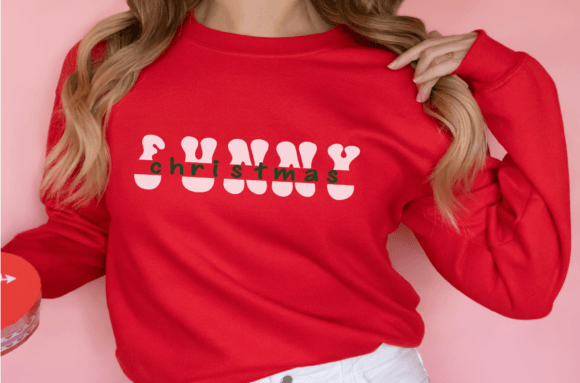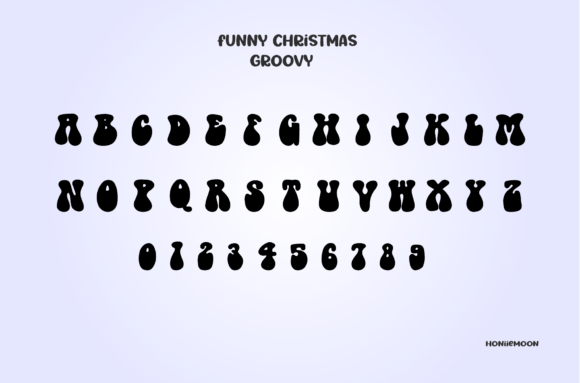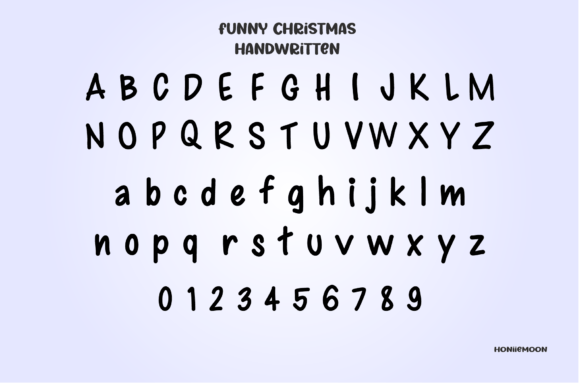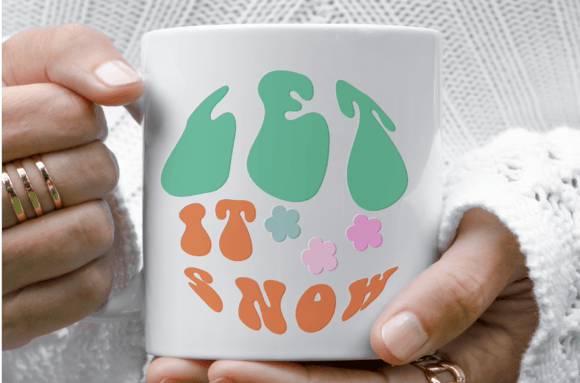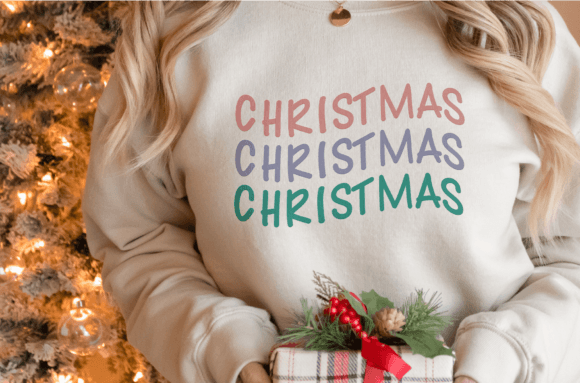
Deck the Halls with Laughter: Introducing the Funny Christmas Duo Font
Are you tired of using the same old boring fonts for your holiday designs? Look no further! Get ready to add some serious festivity and fun to your creations with the Funny Christmas Duo Font. This delightful font duo is the perfect addition to any designer’s toolkit, and we’re excited to dive into its features and benefits.
A Font Duo Like No Other
The Funny Christmas Duo Font is a unique pairing of two font styles: a display font and a handwritten sans font. This dynamic duo is designed to bring a touch of whimsy and playfulness to your designs, making them perfect for a variety of projects, from holiday cards and invitations to social media graphics and more.
Cute, Jolly, and Full of Personality
The Funny Christmas Duo Font is all about spreading joy and cheer. Its bold and colorful display font is sure to grab attention, while the handwritten sans font adds a touch of warmth and friendliness. Together, they create a look that’s both cute and jolly – the perfect combination for any holiday design.
Endless Possibilities
The best part about the Funny Christmas Duo Font is that it’s incredibly versatile. The only limit is your imagination! You can use it to create:
- Blog headers and graphics
- Digital papers and printable art
- And so much more!
Bring Your Designs to Life
With the Funny Christmas Duo Font, you can add a pop of color and personality to your designs. Its bold and playful style is sure to make your creations stand out and leave a lasting impression. Whether you’re a designer, crafter, or DIY enthusiast, this font duo is the perfect addition to your toolkit.
The Funny Christmas Duo Font is a must-have for designers and crafters who want to add a touch of whimsy and fun to their projects. Whether you’re creating:
- Custom holiday gifts, such as cards, gift tags, and wrapping paper
- Social media graphics and posts for your business or personal brand
- Printable art and digital papers for your customers or personal use
This font duo is sure to become a favorite in your collection.
- Font duo includes a display font and a handwritten sans font
- Bold and colorful display font perfect for headlines and titles
- Handwritten sans font adds a touch of warmth and friendliness
- Perfect for holiday designs, including cards, invitations, and social media graphics
- Incredibly versatile – use it for a variety of projects and applications
Get Ready to Spread Some Holiday Cheer
If you’re looking for a font duo that’s sure to bring some laughter and joy to your designs, look no further than the Funny Christmas Duo Font. With its bold and playful style, this font duo is the perfect addition to any designer’s toolkit. So why wait? Get your hands on the Funny Christmas Duo Font today and start creating some amazing holiday designs!